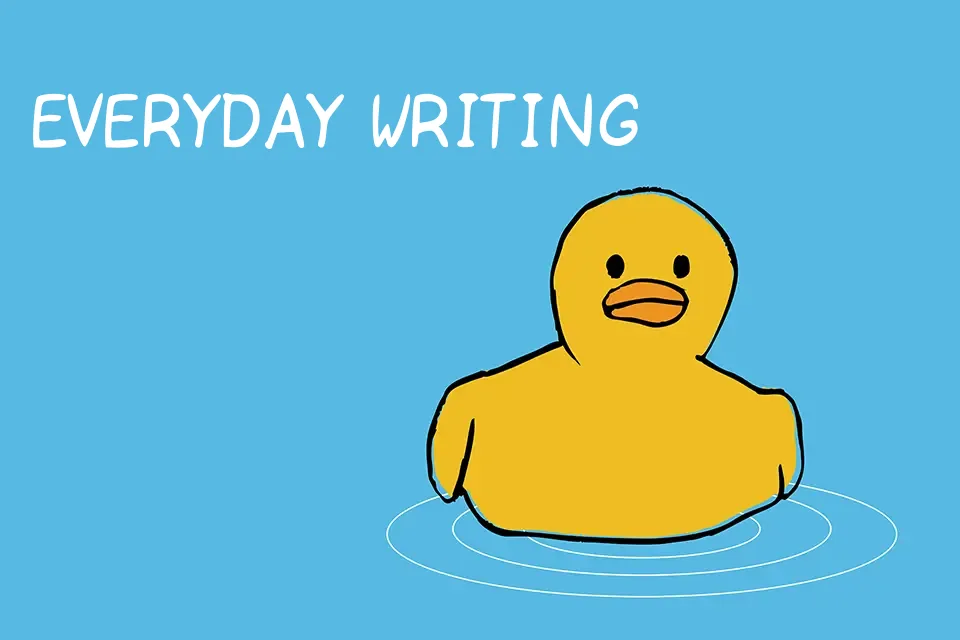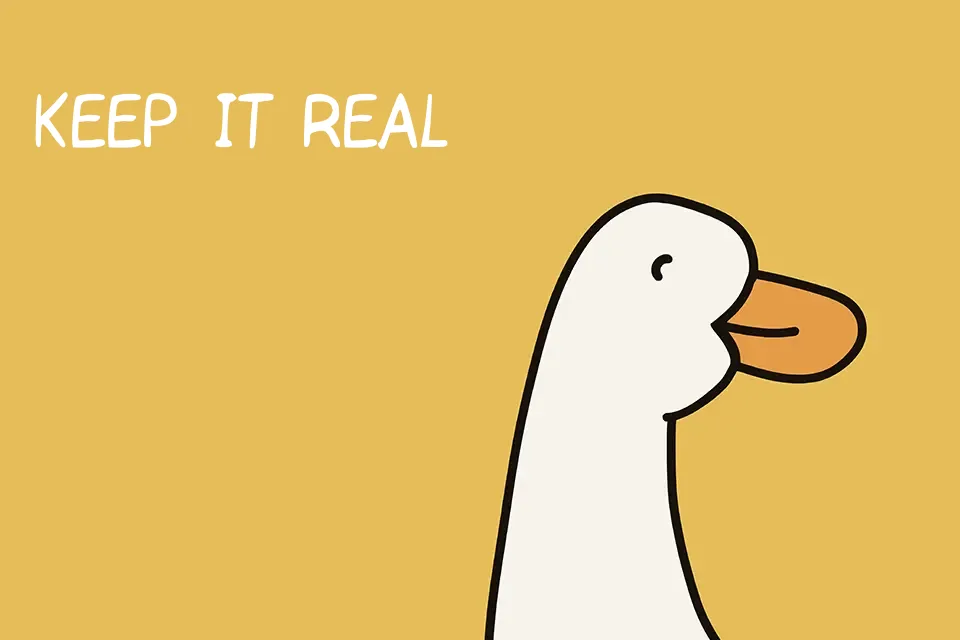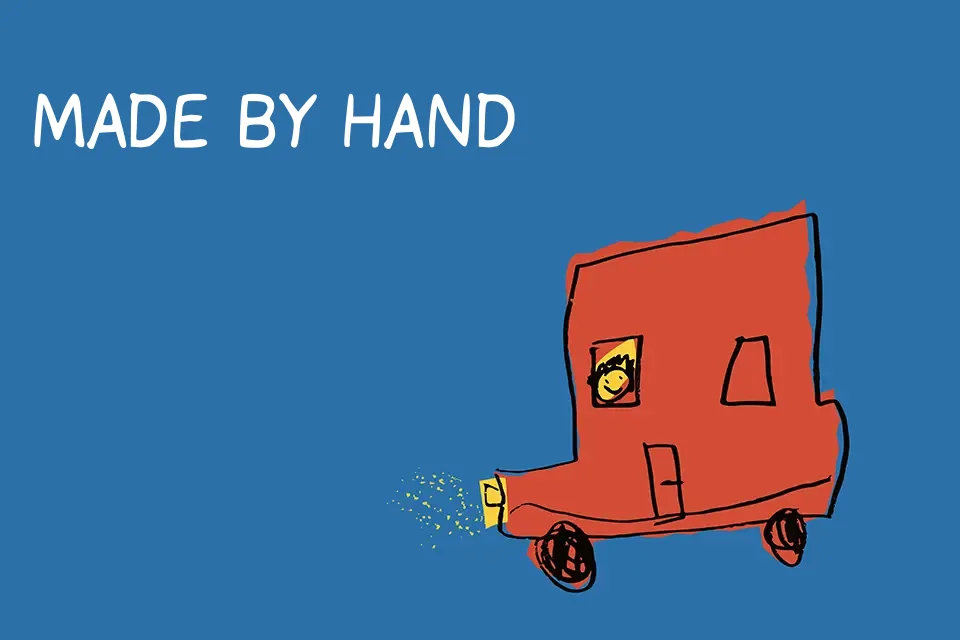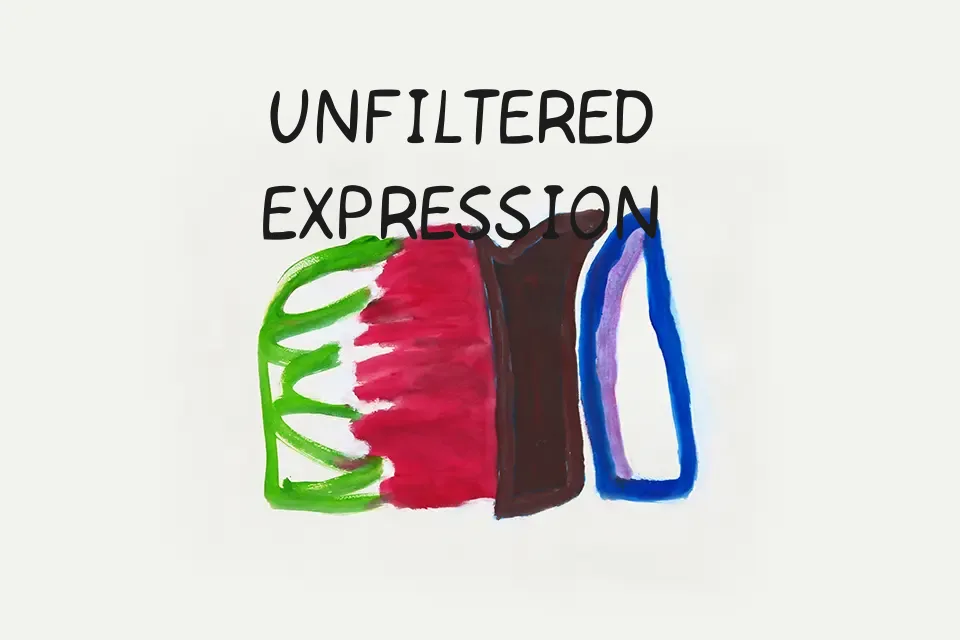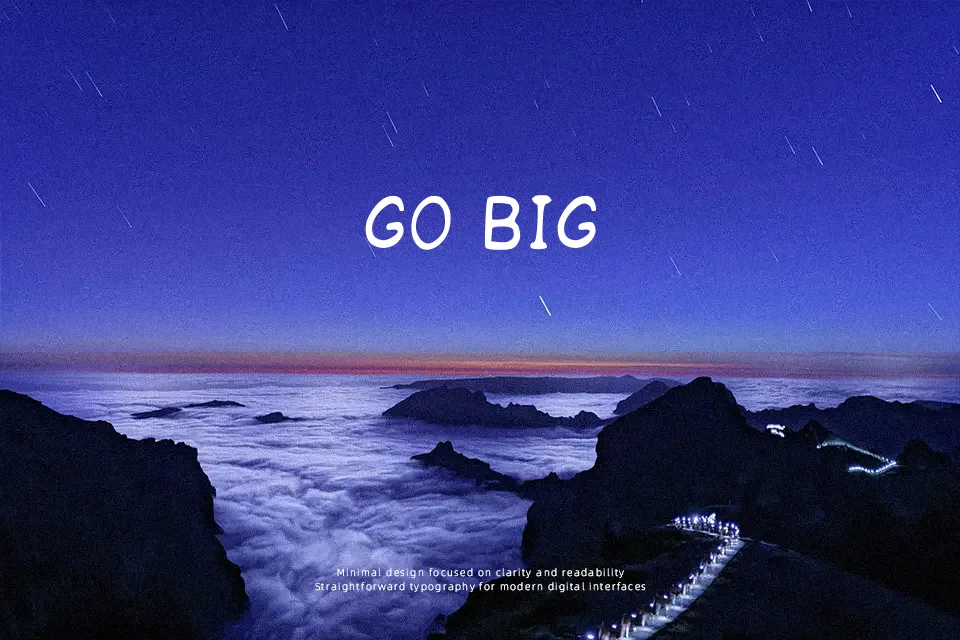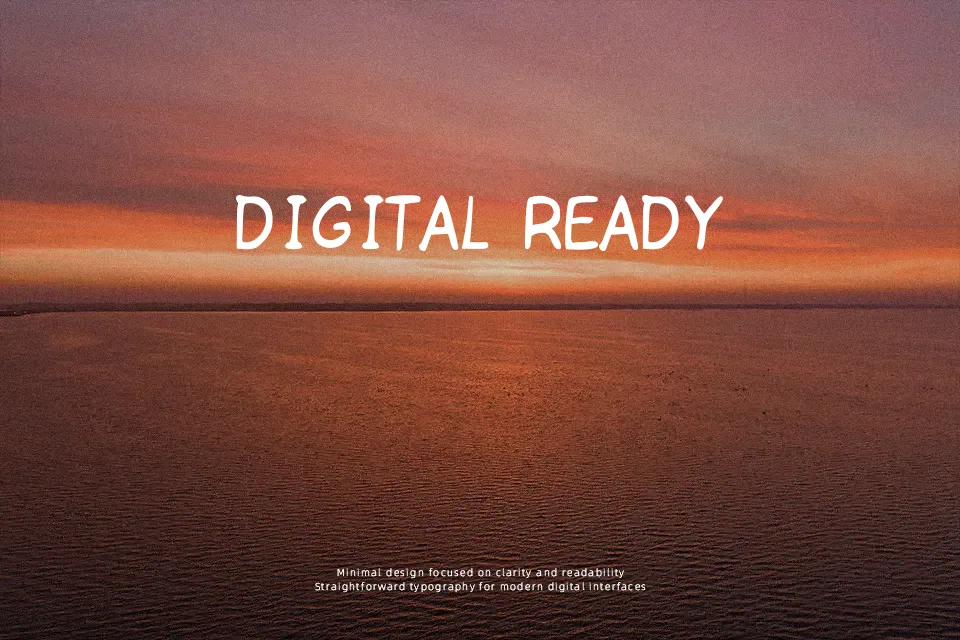
000 Insomniac Comic Dialogue Font
Designed by Thomas Smith
000 Insomniac Comic Dialogue is a hand-lettered comic font created by Thomas Smith, crafted directly from his personal handwriting to bring an organic, authentic feel to comic book dialogue and storytelling. The font features irregular, lively letterforms that mimic the natural imperfections of real hand-lettering, making it well-suited for speech bubbles, caption boxes, and any comic panel that needs a genuine human touch.
The typeface includes a full Latin character set covering uppercase, lowercase, numbers, and standard punctuation, giving designers everything they need for body dialogue in sequential art. Its informal, slightly uneven strokes add character and energy without sacrificing legibility at typical comic dialogue sizes. The design avoids the stiffness of mechanical fonts, delivering a warm and playful feel throughout.
Beyond comics, 000 Insomniac Comic Dialogue works well in kids’ book illustrations, gaming UI elements, casual poster lettering, social media graphics, and any creative project that benefits from a hand-drawn, approachable aesthetic. It is especially appealing to indie creators and small studios looking for a high-personality typeface at no cost.
Perfect for editorial, gaming, and kids, with a creative and comic style.